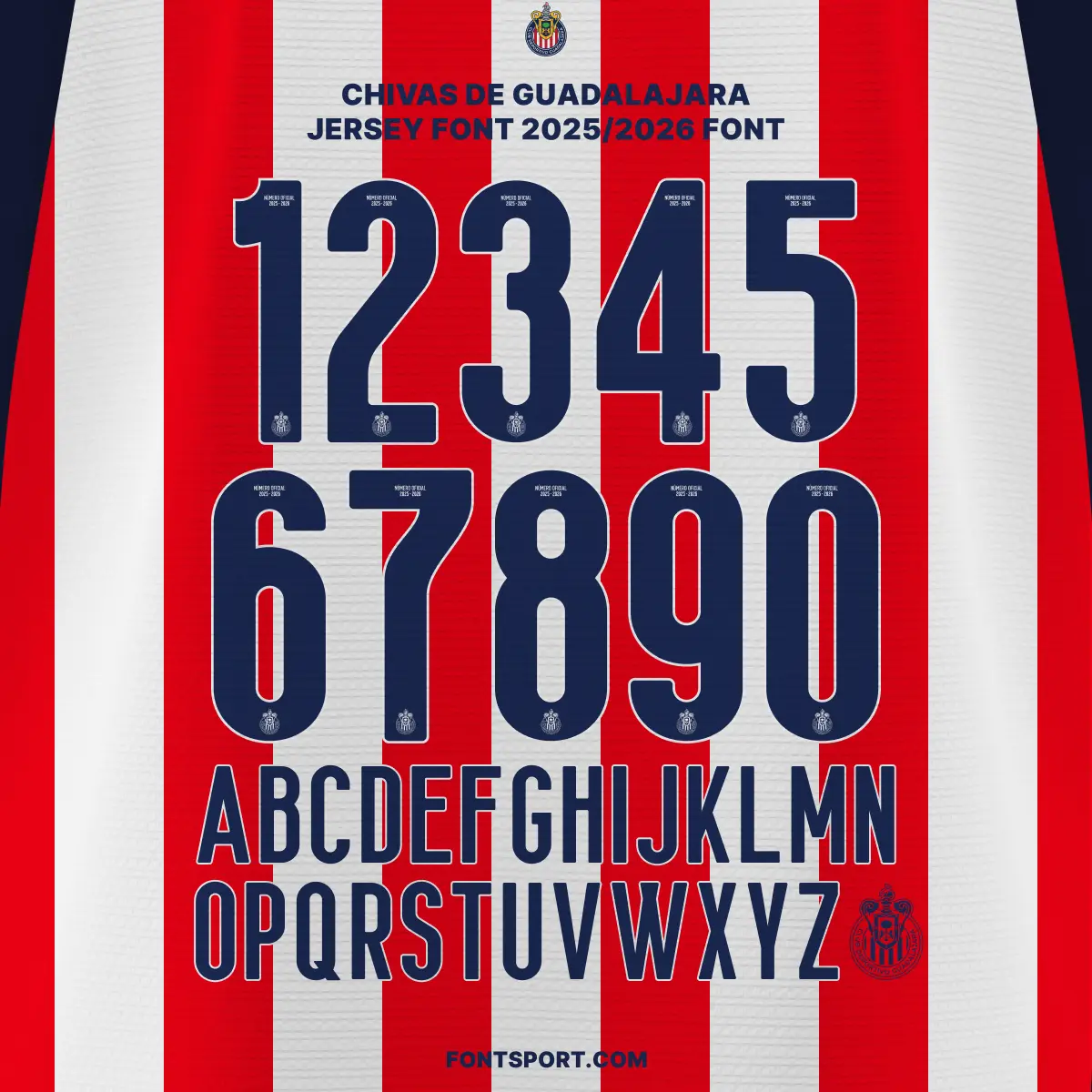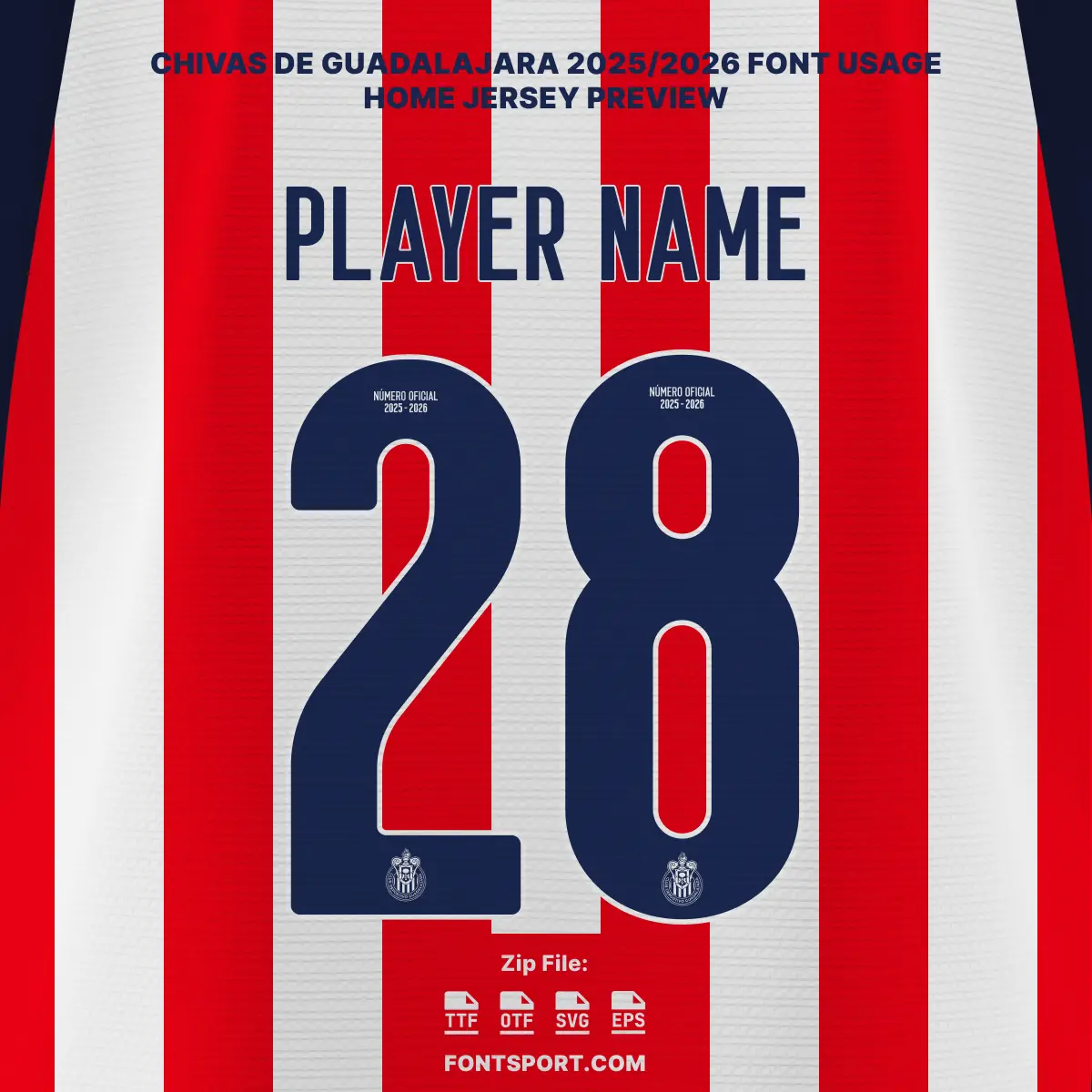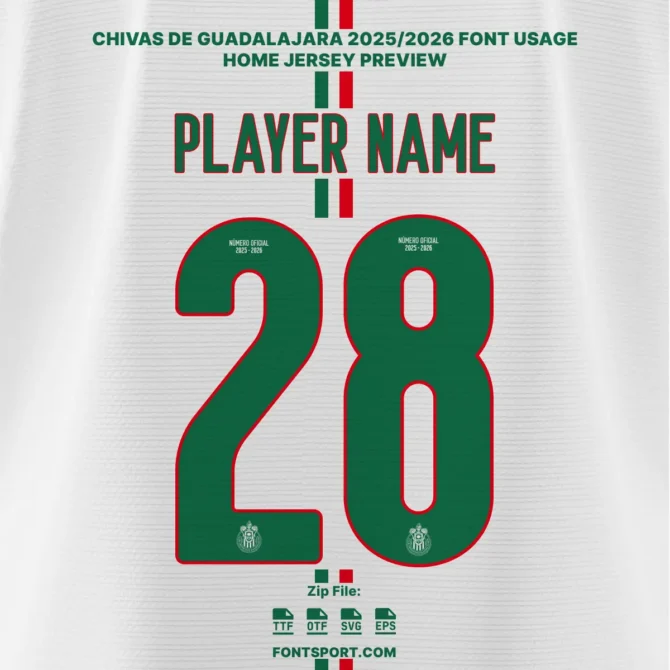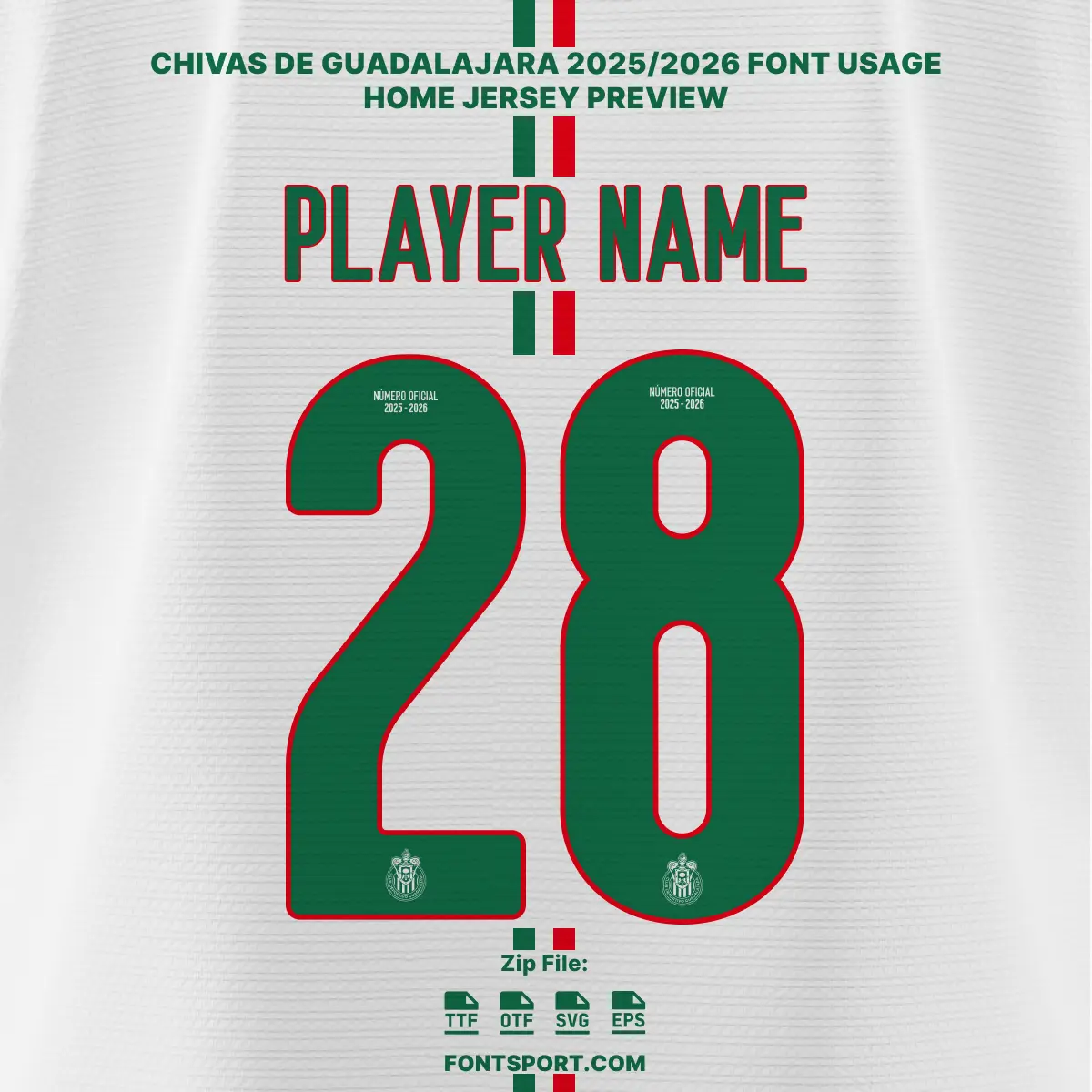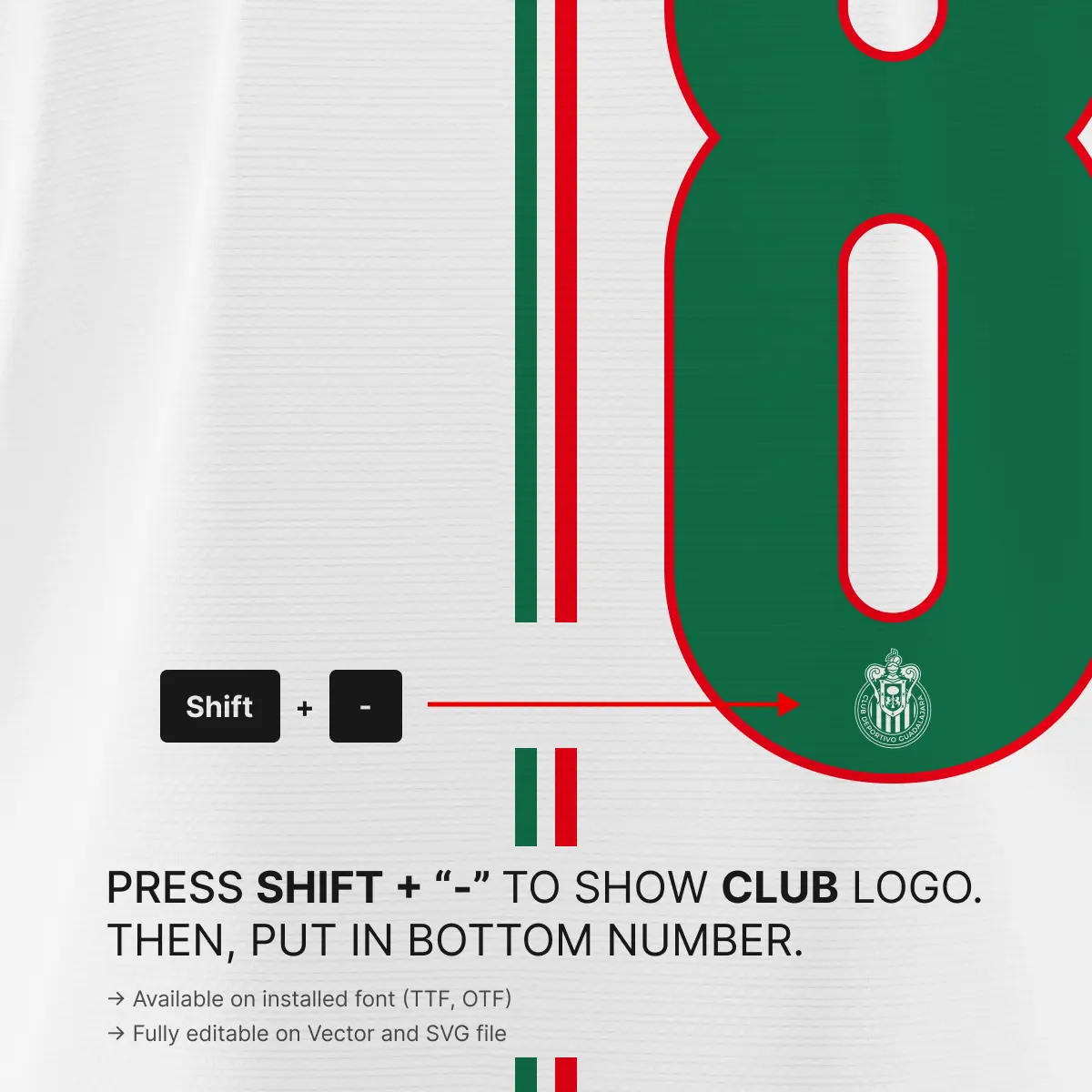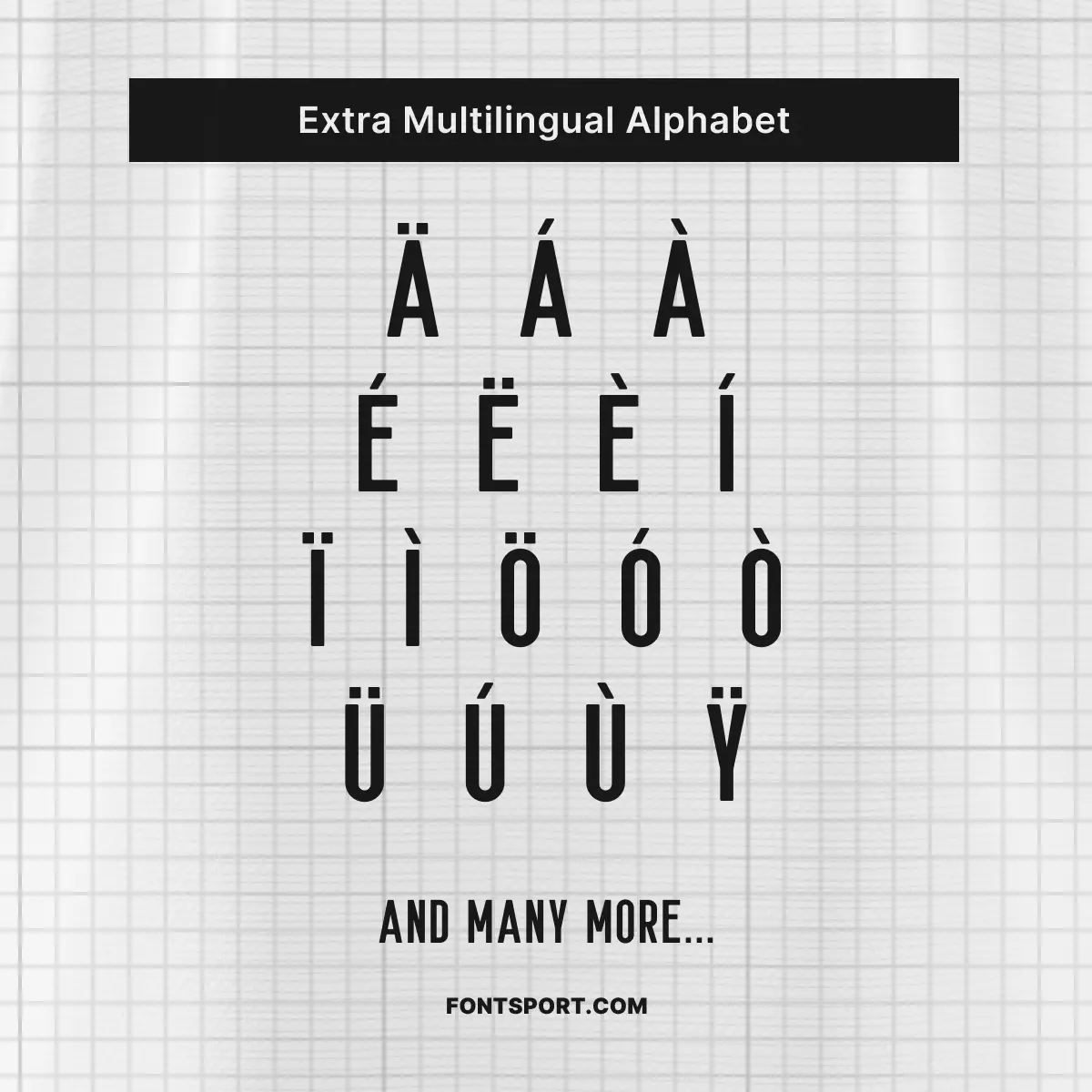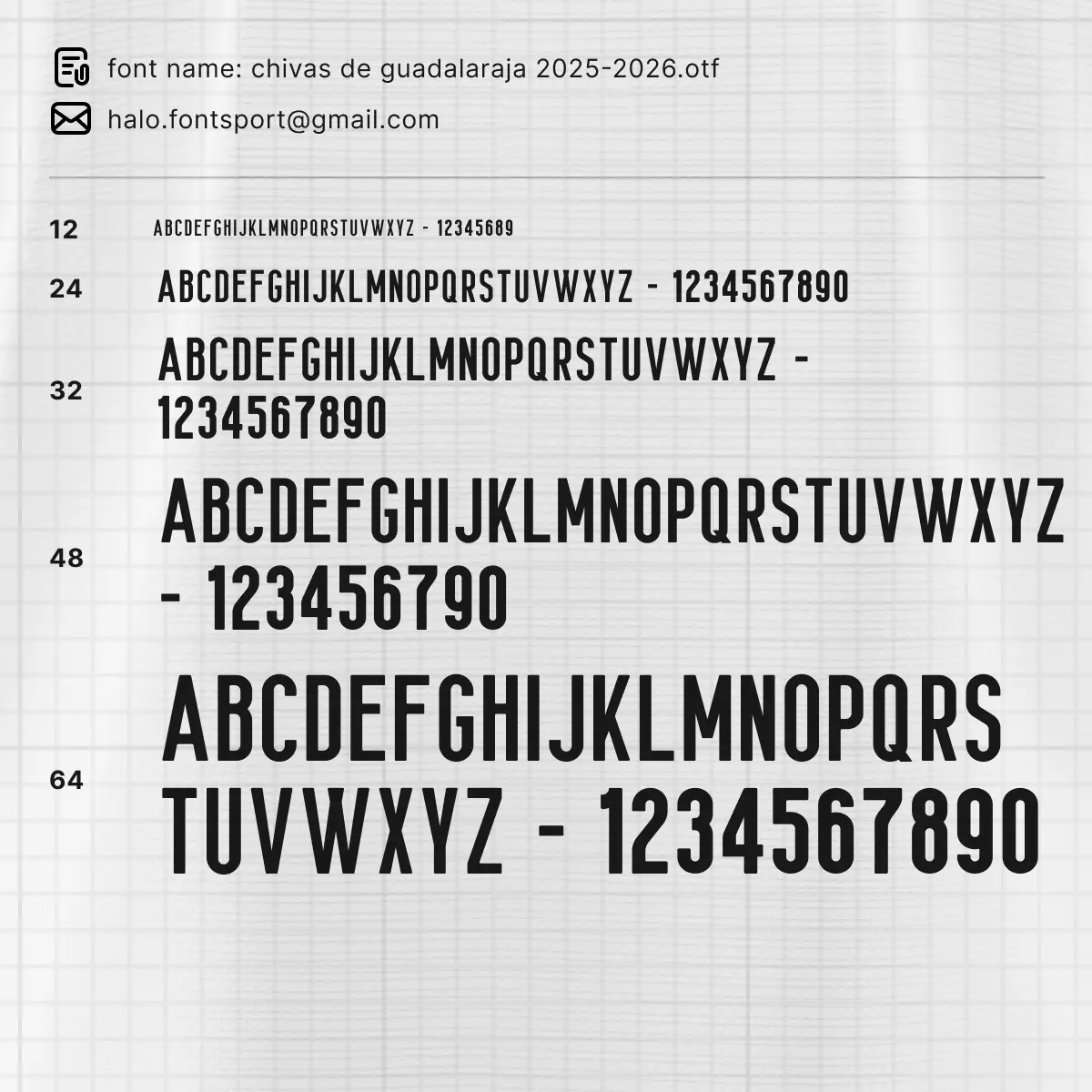
Chivas De Guadalajara Font Kit 2025/2026 – Official Liga MX Typeface
The Chivas De Guadalajara 2025/2026 Font Kit is the authentic typeface worn by the legendary Mexican club during the Liga MX 2025/26 season. Known for their passionate supporters and rich football heritage, Chivas’ font captures the spirit of identity, pride, and tradition—now available for designers and fans alike.
Unlike standard fonts, this exclusive kit has been crafted with sharp readability, balanced proportions, and bold forms that reflect Chivas’ visual identity on and off the pitch. Ideal for creating jersey mockups, sports graphics, merchandise, or digital assets, this font ensures your designs carry the same energy as seen at Estadio Akron on matchday.
• ✅ Full uppercase A–Z & numbers 0–9 in official Chivas 2025/26 style
• Special Chivas crest glyph included for extra authenticity
• ✅ Multilingual Latin support with diacritics
• 🏆 Includes exclusive crest detail for official authenticity
Chivas De Guadalajara in the 2025/26 Season
For fans and professionals, this kit goes beyond typography—it’s a symbol of Mexican football heritage and club identity.